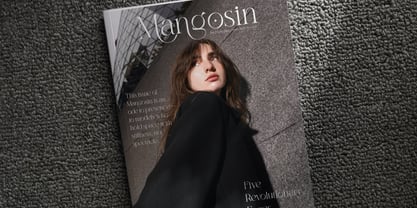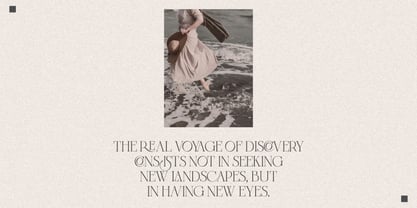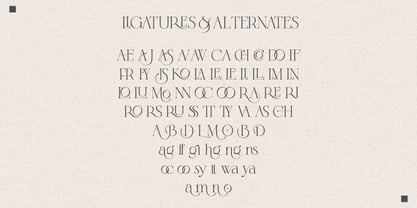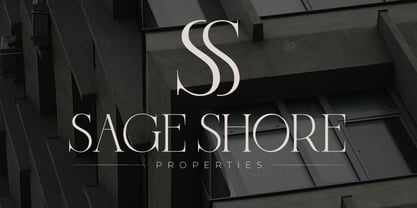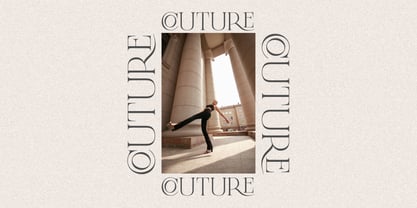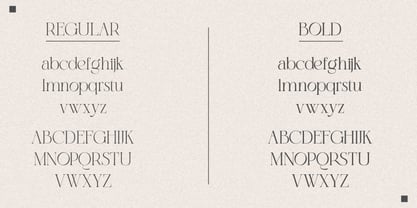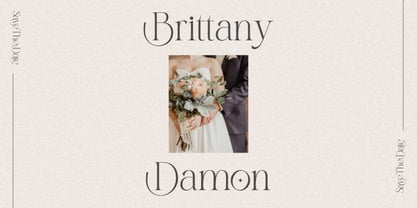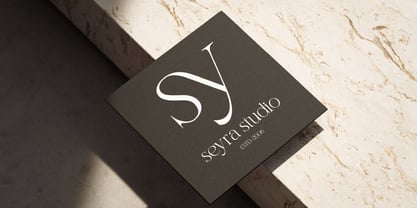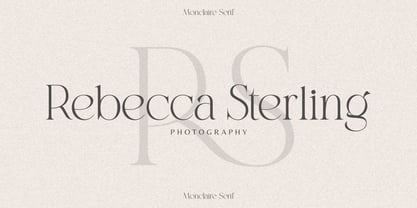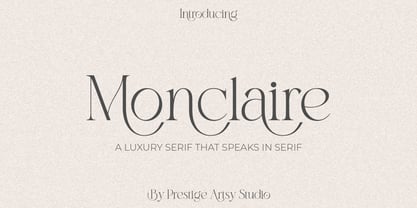
Monclaire
by Prestige Artsy Studio
The Monclaire Font Family was designed by Zak M and published by Prestige Artsy Studio. Monclaire contains 2 styles and family package options. More about this family
Say hello to Monclaire, a high-end serif font designed to bring elegance, versatility, and personality to your creative projects. Whether you're designing for fashion, branding, editorial layouts, luxury packaging, or wedding stationery, Monclaire delivers effortless sophistication. From luxe logos to graceful headlines, Monclaire helps your words make a lasting impression. Precision-crafted and full of personality, this typeface was built for designers who value detail and timeless aesthetics.